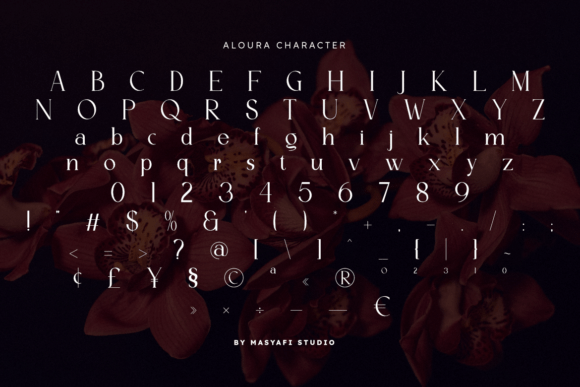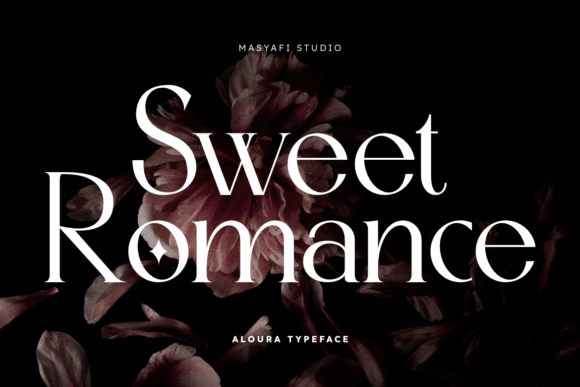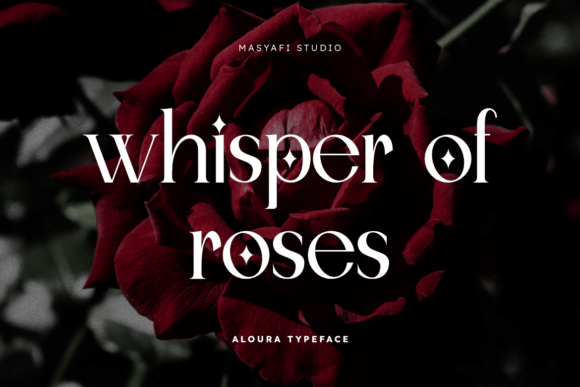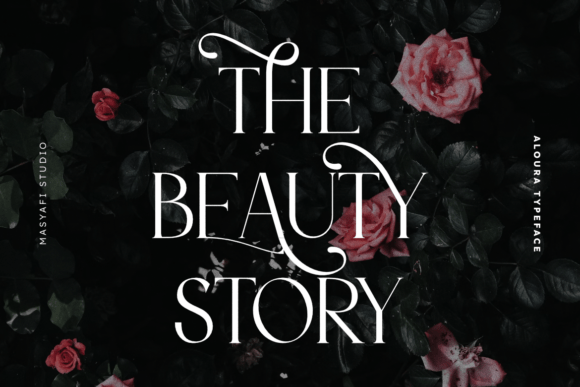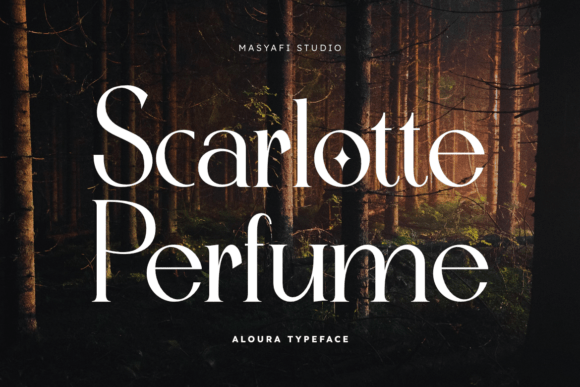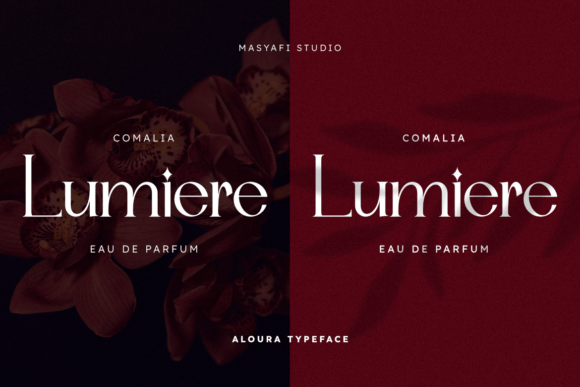
Unleash the Luxury with the Aloura Font
There’s something magical about designing a logo for a high-end fashion brand, isn’t there? The thrill of creating an identity that exudes sophistication and elegance, the satisfaction of knowing that your work will be seen by thousands of people. It’s a feeling that never gets old, and one that drives us to push the boundaries of creativity. For designers like you, who strive to create breathtaking visuals that leave a lasting impression, we have just the thing.
Meet the Aloura Font, a modern luxury serif typeface that embodies the essence of high-class aesthetics. With its elegant curves and stylish swashes, this font is designed to elevate your projects to new heights. Whether you’re working on a luxury branding, fashion identity, or editorial layout, the Aloura Font is the perfect tool to help you achieve your creative vision.
Aloura Font Key Features
- Unique Characteristics: The font features a unique blend of modern and elegant styles, with subtle nuances that give it a sophisticated and refined look.
Aloura Font Review
Overall, I found the Aloura Font to be a decent addition to any designer’s toolkit, with some notable strengths and weaknesses.
- Unique aesthetic: The Aloura Font boasts a distinctive, elegant look that can add a touch of sophistication to any design project.
- Good legibility: The font is well-suited for body text and headings, making it a solid choice for documents, presentations, and websites.
- Wide language support: The Aloura Font includes a broad range of language support, making it a great option for multilingual projects.
- Limited expressive range: While the font is elegant, it can feel a bit one-dimensional, lacking the emotional punch of more expressive fonts.
- Not ideal for bold typography: The Aloura Font can become overwhelming when used for large, bold typography, making it less suitable for projects that require dramatic emphasis.
In conclusion, the Aloura Font is a solid, dependable choice for designers who value elegance and legibility. While it may not be the most exciting or expressive font, it’s a great option for projects where subtlety and refinement are key.
To get the most out of Aloura Font, use it in combination with bold or italic text for emphasis.
Use it in headings and subheadings to create visual hierarchy in your designs.
Experiment with different font sizes and colors to add depth and interest to your text.
Aloura Font is perfect for:
- Infographics and data visualizations
- Business and marketing materials
- Editorial and publishing projects